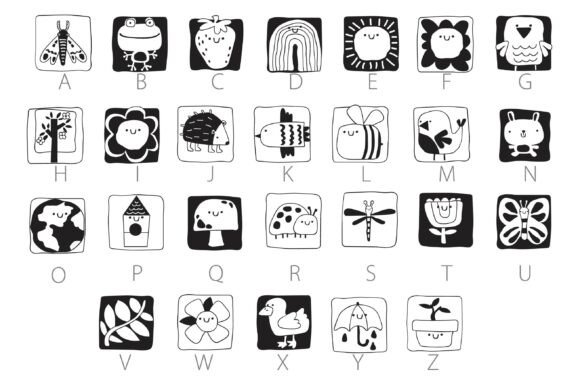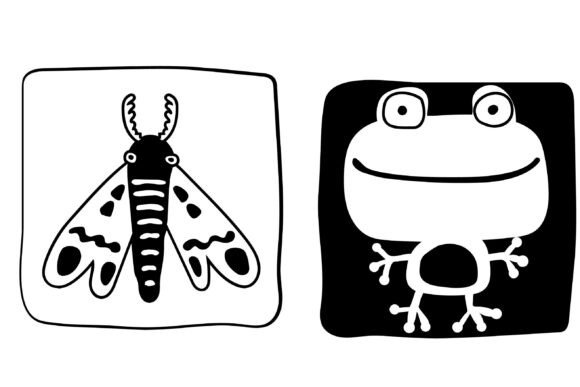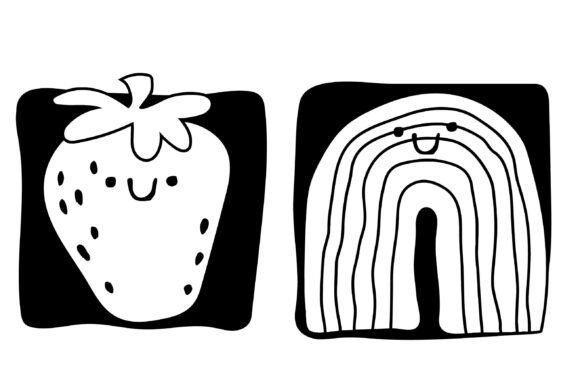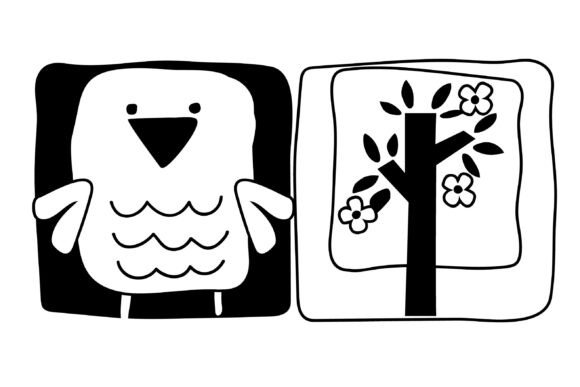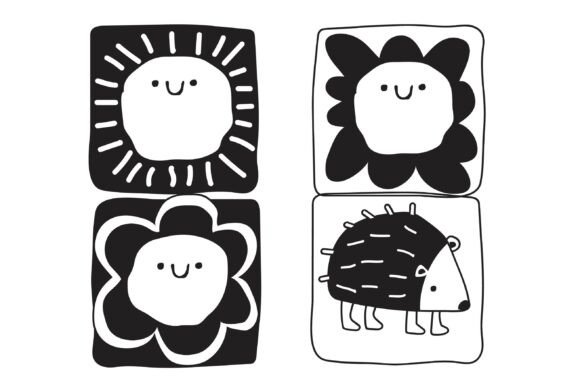
Introduction to Iconic Spring Dingbats Font
As a designer, there’s nothing quite like the thrill of finding the perfect font to bring your creative vision to life. You’re staring at a blank page, brainstorming ideas for a spring-themed project, and suddenly, you stumble upon the perfect design resource – the Iconic Spring Dingbats Font. Its vibrant energy and whimsical optimism are the perfect antidotes to a cold winter morning, and you can’t wait to get started.
This exceptional dingbat font is more than just a pretty face – it’s a high-quality design tool that’s packed with seasonal motifs, from smiling rainbows to forest friends like bunnies and hedgehogs. With its soft-cornered square frames and high-contrast black and white fills, it’s the perfect choice for designers looking to add a touch of springtime magic to their projects.
- High-quality vector design resource ideal for creative projects, offering a unique and stylish aesthetic.
- Includes a set of intricate and detailed dingbats with transparent background, allowing for easy layering and composition.
- Unique characteristics include hand-drawn elements, subtle texture, and a mix of modern and vintage design elements, making it perfect for adding a touch of personality to creative projects.
- Perfect for use in a variety of creative projects, including graphic design, digital art, and craft design, where a high-quality, custom design resource is needed.
I recently stumbled upon the Iconic Spring Dingbats Font, and I must say it’s been a game-changer for my creative project. As a designer, I’m always on the lookout for high-quality design resources that can elevate my work, and this font definitely fits the bill.
What works well: ✨ The font is incredibly versatile and can be used for a variety of creative projects, from graphics to web design. The transparent background feature is also a major plus, as it allows for seamless integration with any design element. I’ve used it for several projects, and it’s always a crowd-pleaser.
However, I do have a few limitations to note: ⚠️ While the font is incredibly versatile, it may not be the best choice for projects that require a more formal or traditional aesthetic. Additionally, some of the dingbats may be a bit too playful for certain designs.
Overall, I’m thoroughly impressed with the Iconic Spring Dingbats Font. It’s a fantastic addition to any designer’s toolkit, and I highly recommend it for any creative project that requires a touch of whimsy and fun.
The Iconic Spring Dingbats Font is a versatile design resource that can be used in a variety of creative projects, such as social media graphics, infographics, presentations, and documents. Its high-quality design makes it an ideal choice for anyone looking to add a touch of elegance and sophistication to their work.